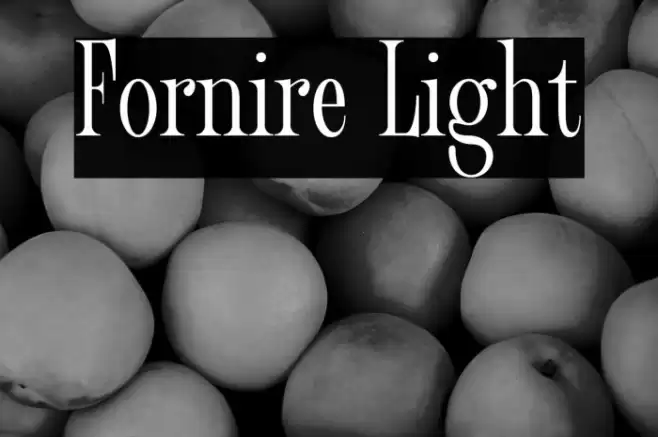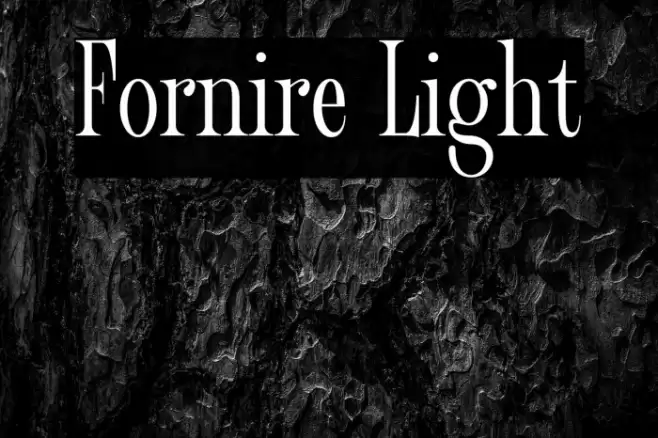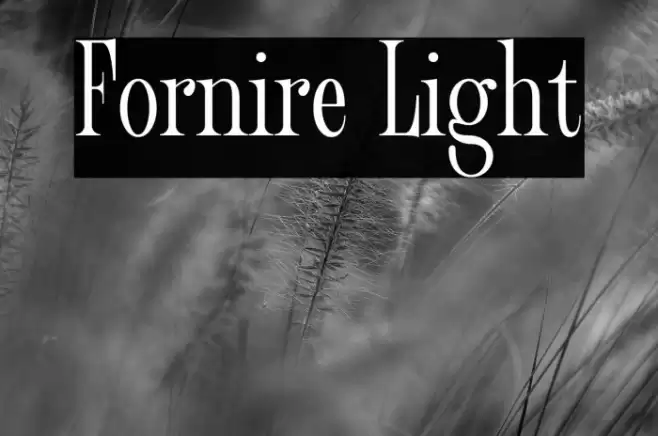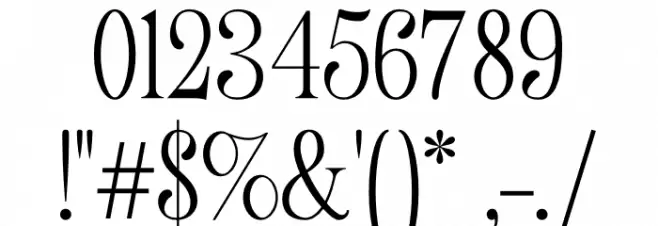
Fornire Light Font
Fornire Light Description
This font features a classic serif style with elegant, elongated strokes and a refined appearance. The uppercase letters are tall and commanding, while the lowercase letters maintain a graceful flow with subtle curves. The numerals are distinct and clear, making them easily readable. Special characters are designed with a touch of sophistication, complementing the overall aesthetic. The font's high contrast between thick and thin strokes adds to its timeless appeal, making it suitable for a variety of formal and creative applications.
A classic serif font with elegant, elongated strokes and high contrast from Uncategorized fonts.
- Proposed Projects: Ideal for book covers, formal invitations, branding, and editorial design.
- Overall Style: Classic